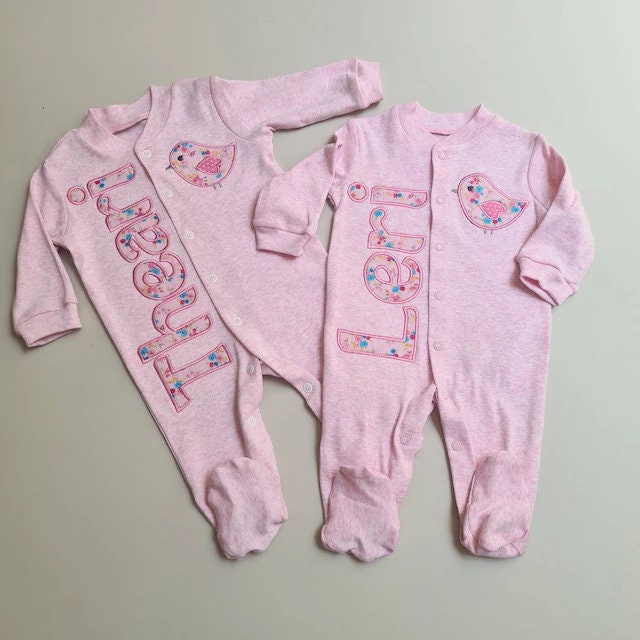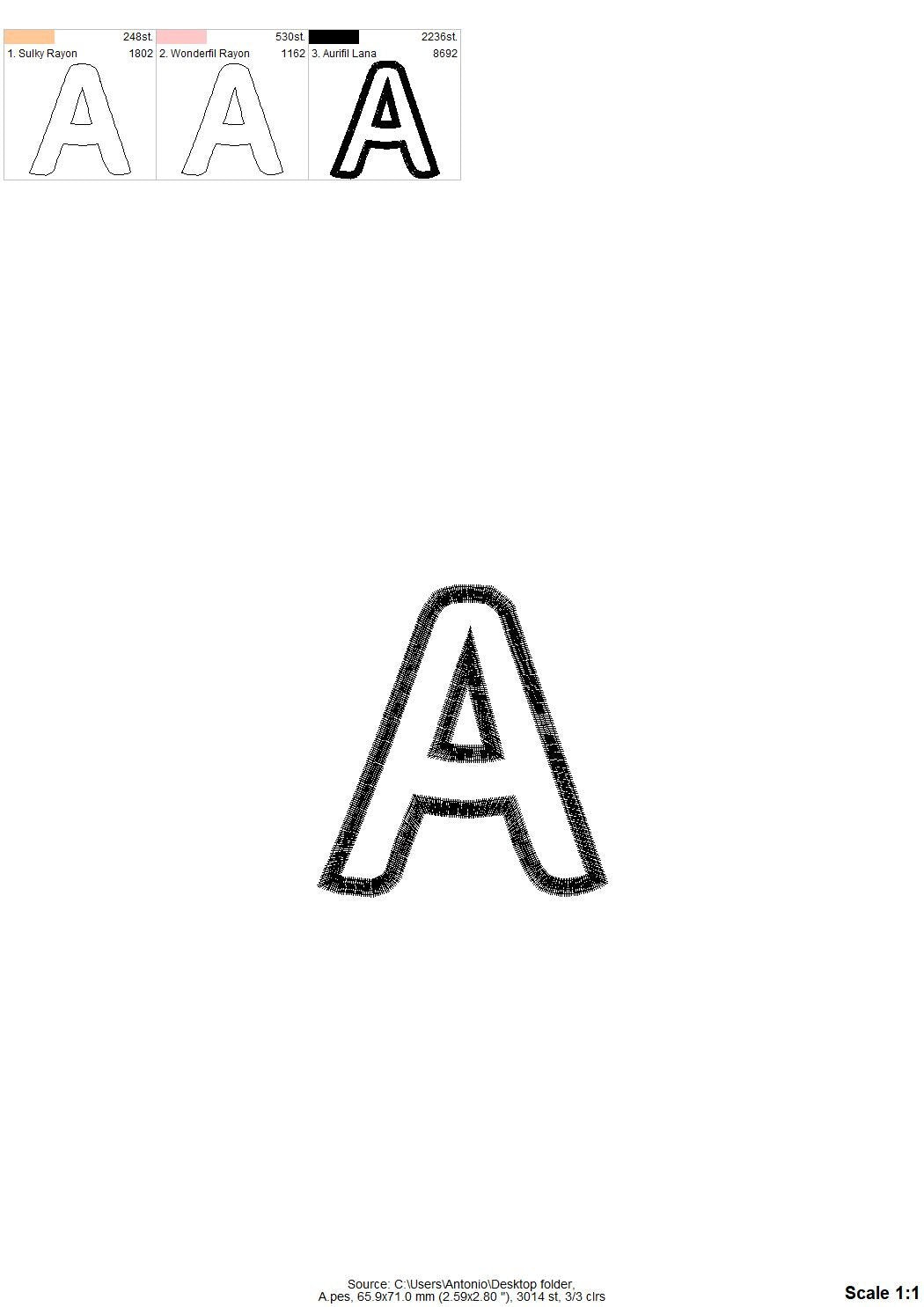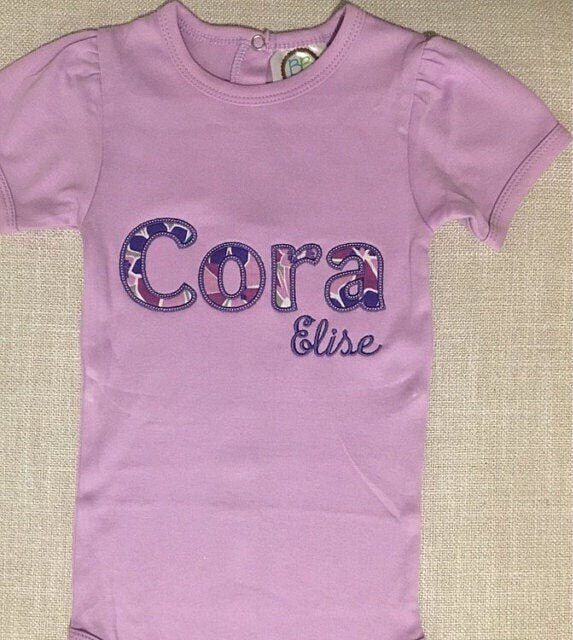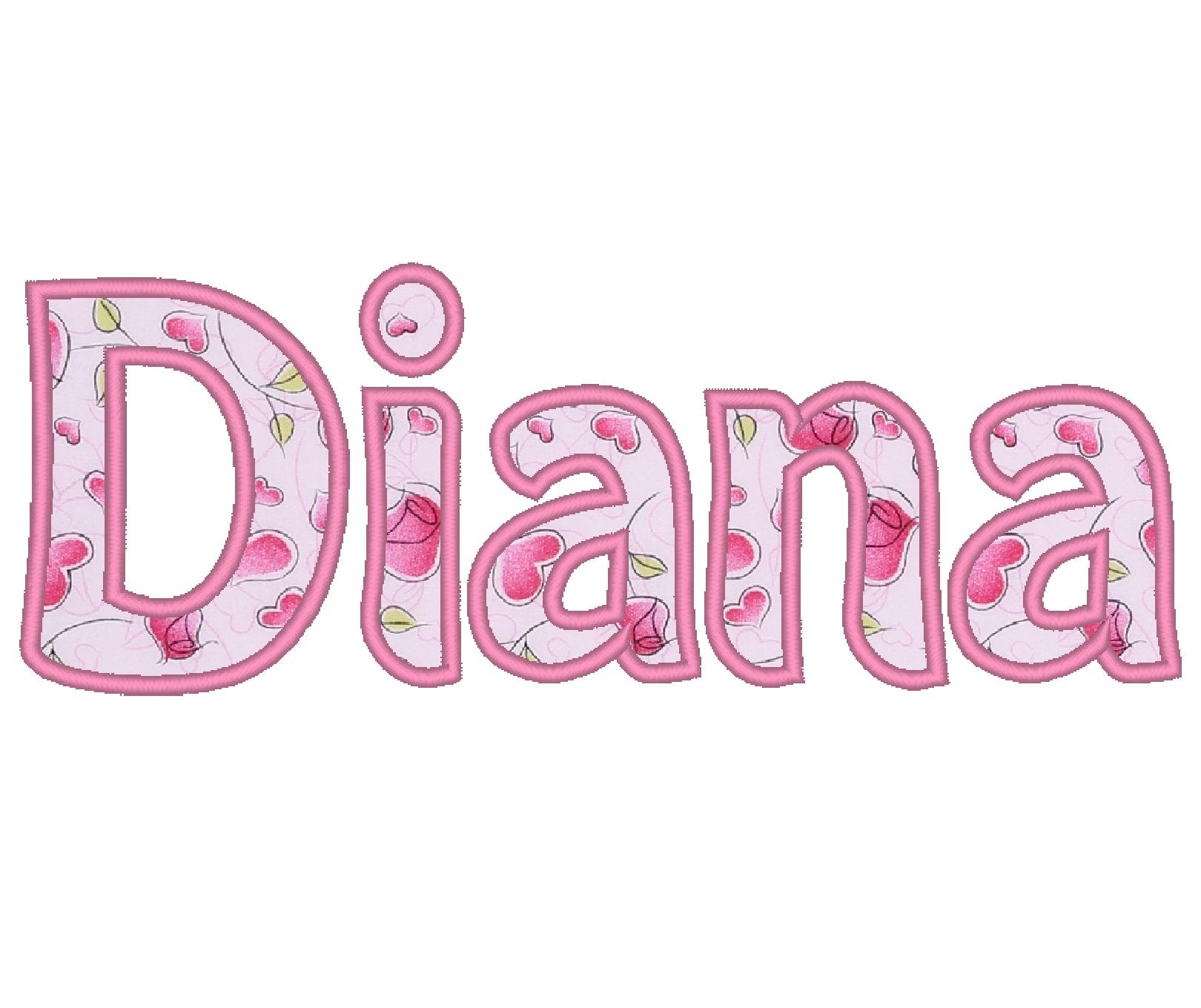
Great to sew. Comes out beautifully
Sehr schöne Datei mit tollem Stickergebnis. Danke!
very nice, love the stitch out
Great quality, stitched out great.
Stitched out beautifully. And Anna is such a delightful digitizer 🙏
This has such a great stitch out!!!
Stitched perfectly, nice font with both capitals and small.
Lovely font that stitched perfectly. Great communication from Anna. Recommended.
Stitched out beautifully. Just what I wanted
This turned out amazing I will definitely be using a lot more
Excellent sewed fantastic thank you
This file stitched very well.
I was really pleased with this design it stitched out a treat.
Great Stich out Cant wait to use this font more
Amazing file! Stitched so beautifully!
I didn’t realise I was getting the whole alphabet. Really looking forward to making something with this
Wonderful applique letters. Stitched out great!
I really didn’t care for the way it did the Satin stitch. It was so thin until it was hard to get it cut back enough and still not have frizzies sticking out
It was hard to find a smaller size applique font so I was happy!
Easy to use, perfect for the project I was working on
Lässt sich super sticken. Ein tolles Ergebniss!
Nice addition to my projects
haven't used it yet but looks super cute!
Stitched cleanly. Instruction and layers were easy to read and follow.
Stitched out beautifully. So happy with the results.
Cute design and it sewed out beautifully!!
My first ever attempt at applique and I love the lettering!
Enjoyed stitching this beautiful appliqué!